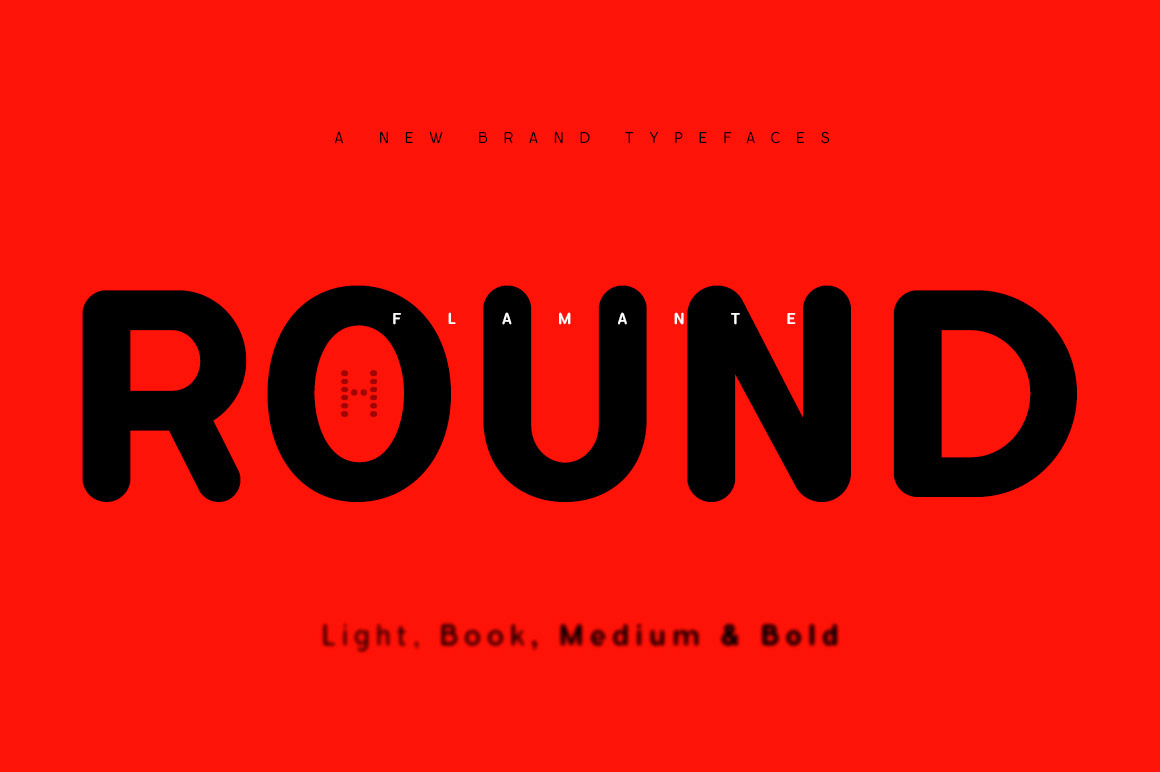
Flamante Round 8 Fonts
Flamante Round is a group of eight corporate typographies of geometric construction, rounded and neo-grotesque style, are fonts with an excellent readability for titles, short texts or for use in signage. The group of fonts is made up of 4 weights: Light, Book, Medium & Bold plus their respective italics.
- Swiss-style fonts built on a 4 × 6 building grid formed with 144 x 119 units, two digits taken from the fibonacci and Perrin sequences, these measures define the width and height of the vertical and horizontal antlers and the overall proportion of the font. The metrics and kerning have been carefully set up for fluent reading in paragraph texts.
- 8 fonts: Light, Book, Medium & Bold + Italics.
- OpenType Functions: Subscript, Superior letters, Additional languages, Numerators, All Alternates, Alternate Annotation Forms, Superiors, Slashed Zero, Historical Forms, Capital Spacing, Denominators, Superscript, Historical Ligatures, Oldstyle Figures, Inferiors, Scientific Inferiors, Ordinals, Discretionary Ligatures, Standard Ligatures, Extended Fractions, Localized Forms, Kerning.
- They include the Bitcoin symbol. b# - (ligatures)